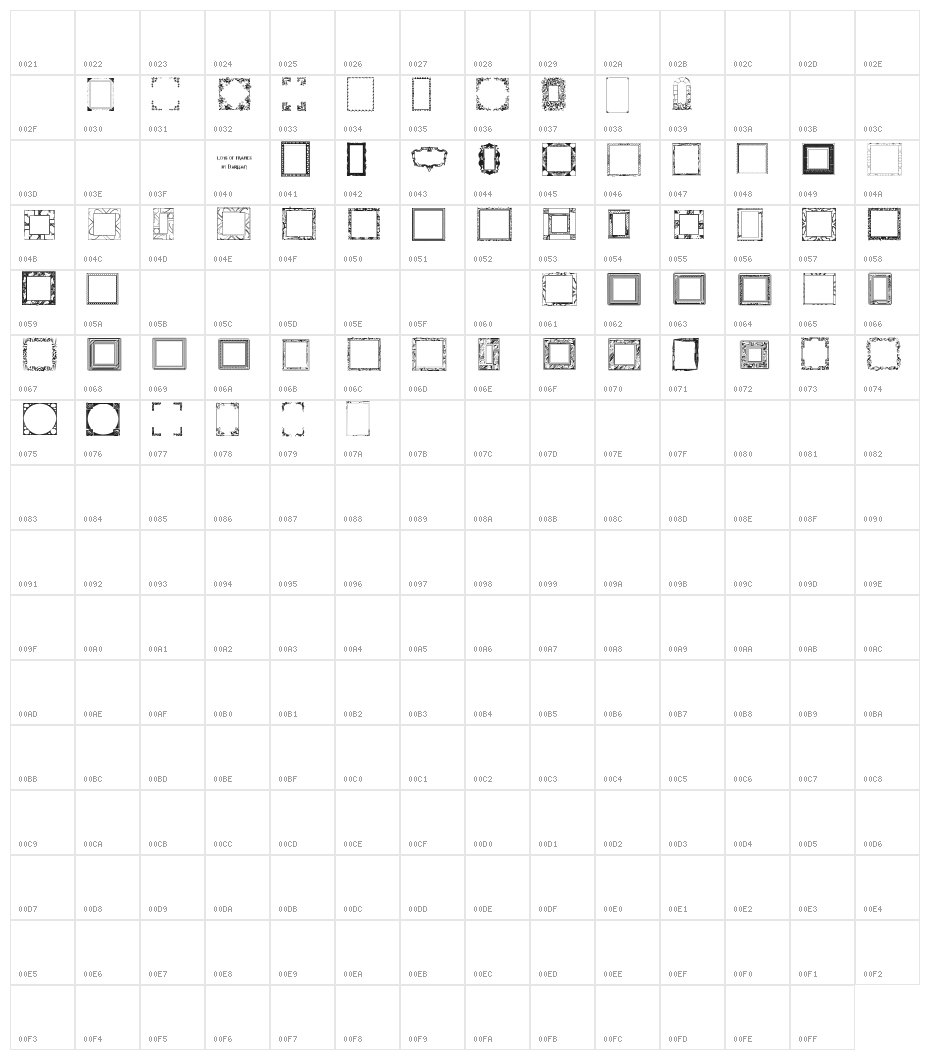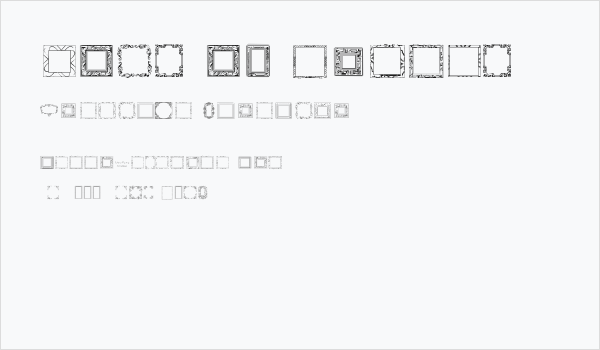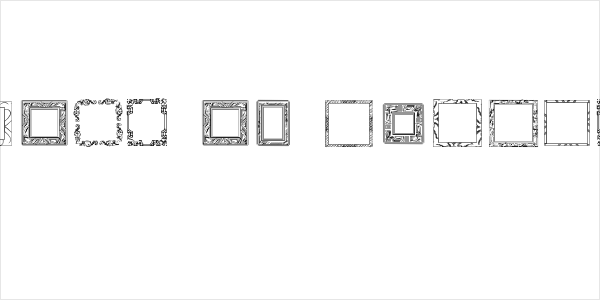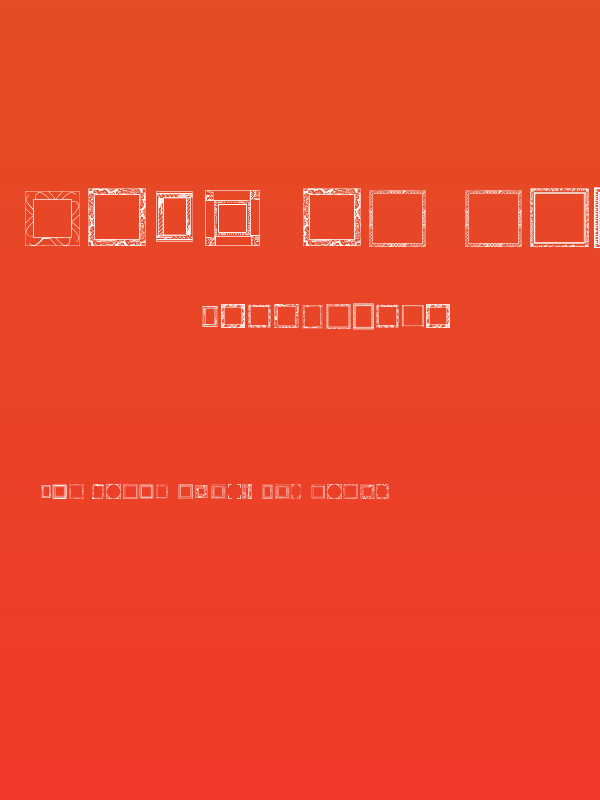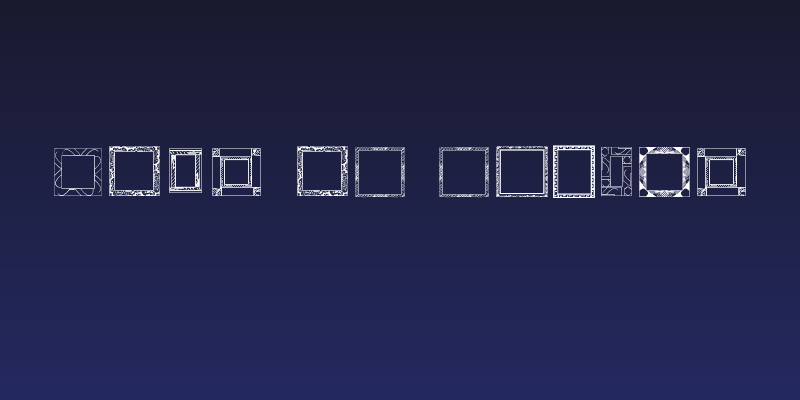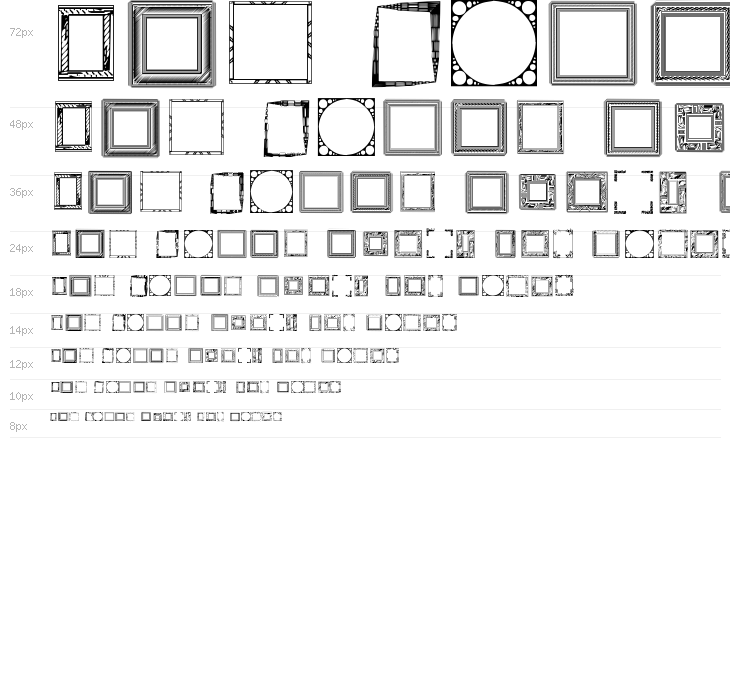
Lots of Frames Font
Lots of Frames Description
A decorative display set featuring a wide variety of ornate and simple picture frame illustrations, each glyph representing a unique frame design with different levels of detail, shapes, and embellishments.
| Overall Style | Decorative, Ornate, Playful |
| Use Case | Borders, Frames, Decorative elements |
| Proposed Projects | Scrapbooking, invitations, certificates, digital art, graphic design, decorative borders. |